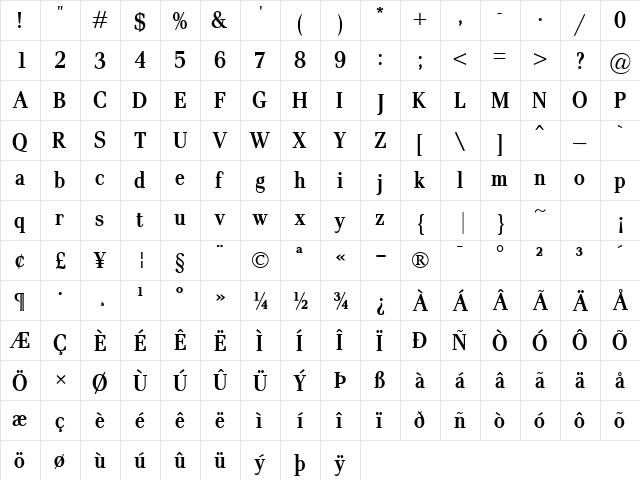
Pax Cond Bold
Design Context for Pax Cond Typeface
Pax Cond takes a measured approach to typography — its balanced proportions and neutral character make it a reliable workhorse for both digital and print work. The heavy weight commands attention and anchors typographic hierarchies. Its narrow stance lets it pack a punch even in space-constrained designs.